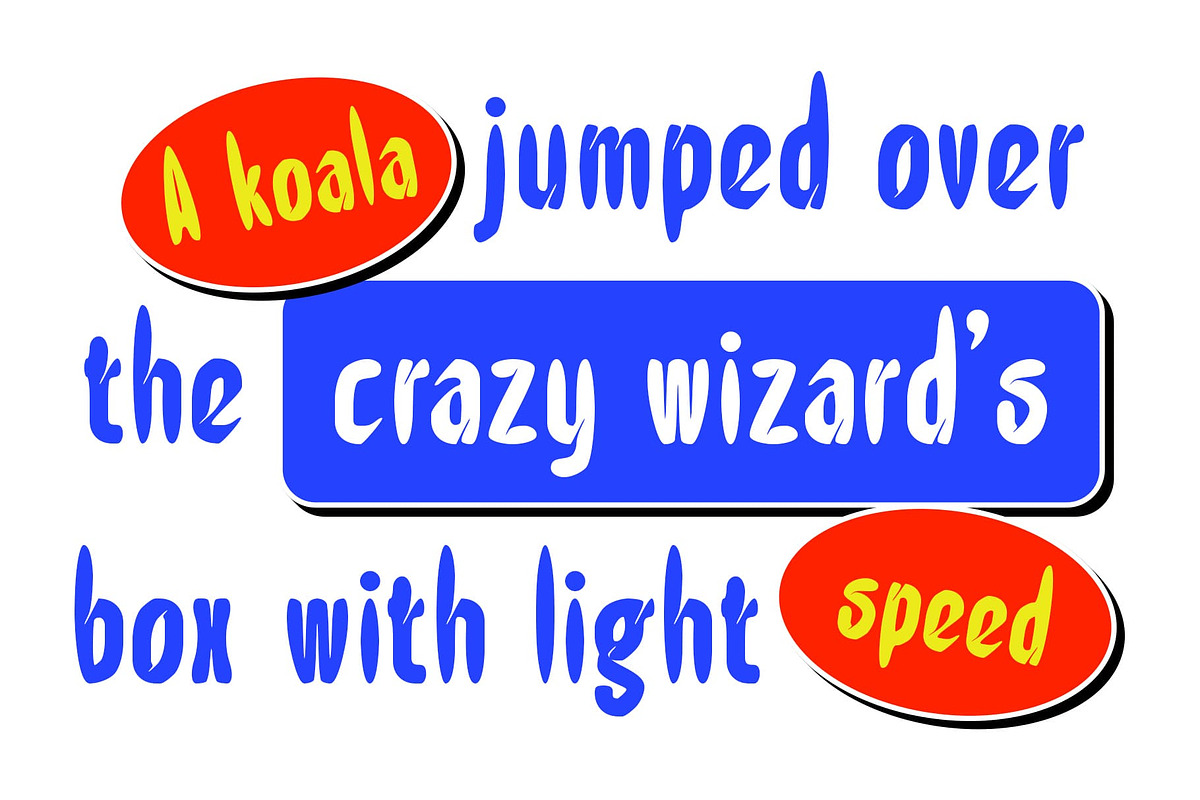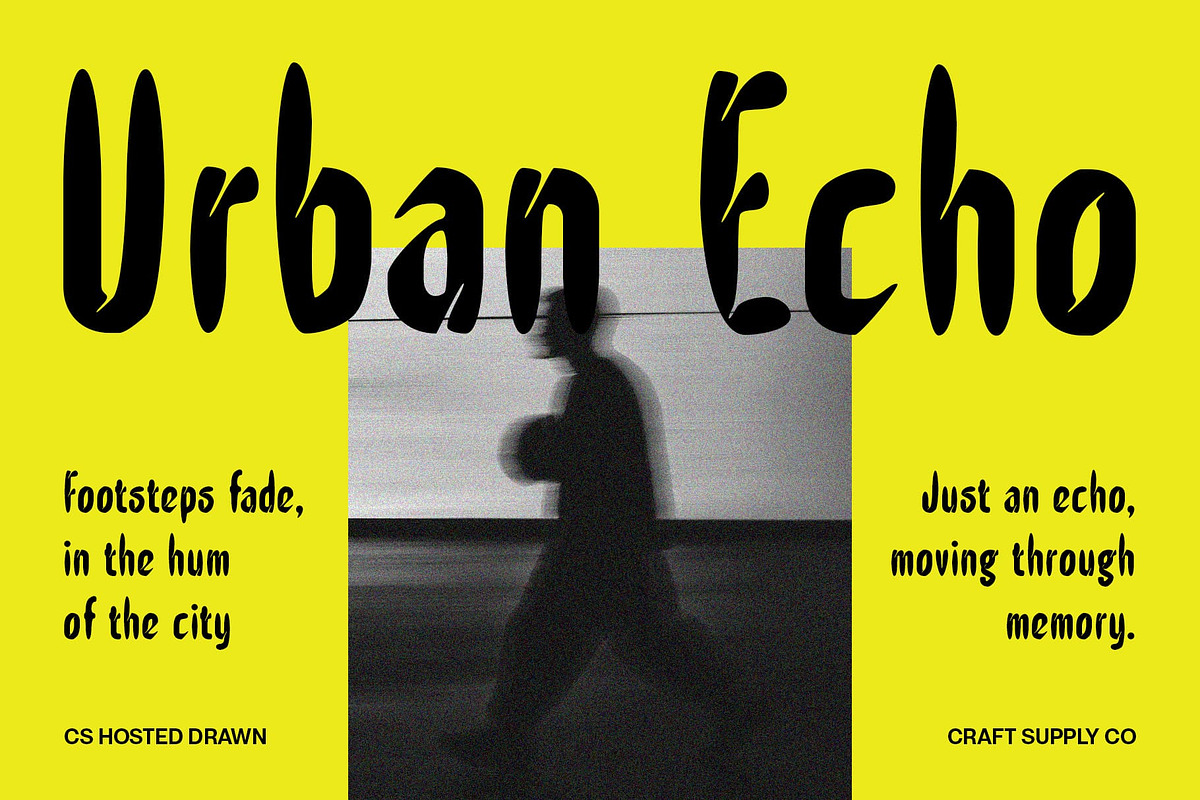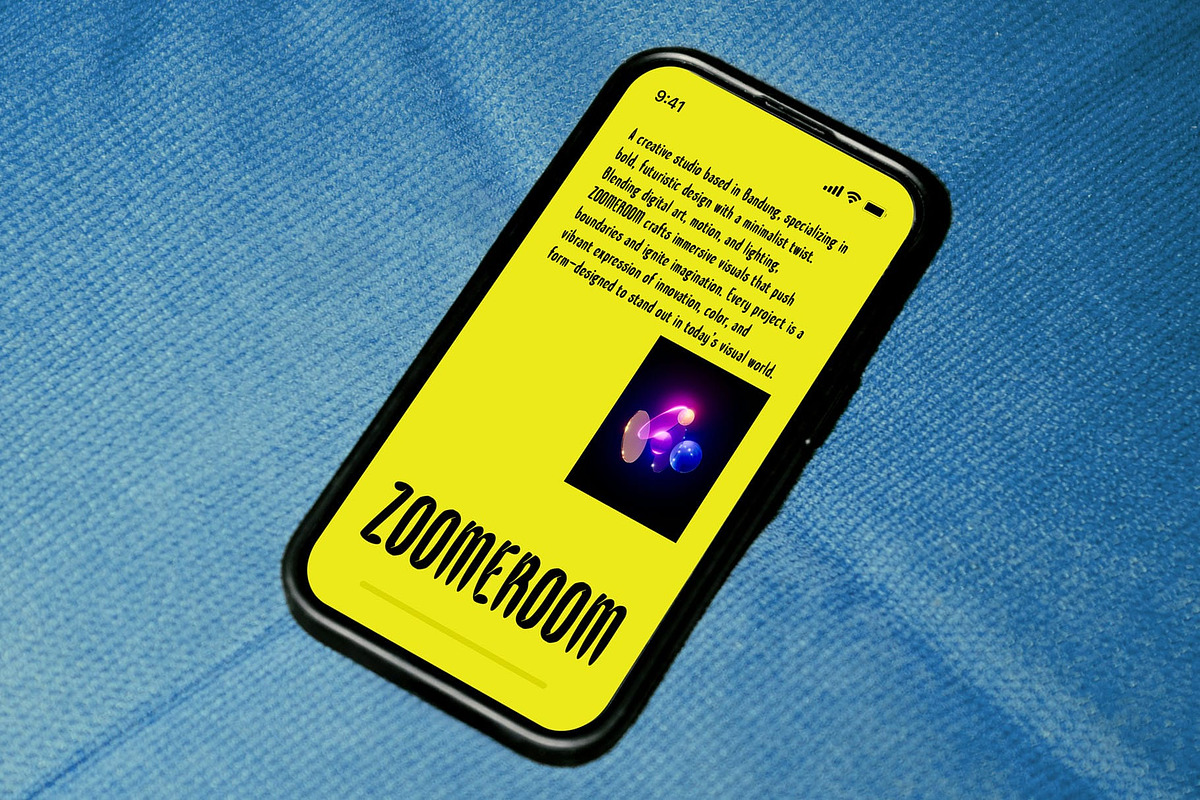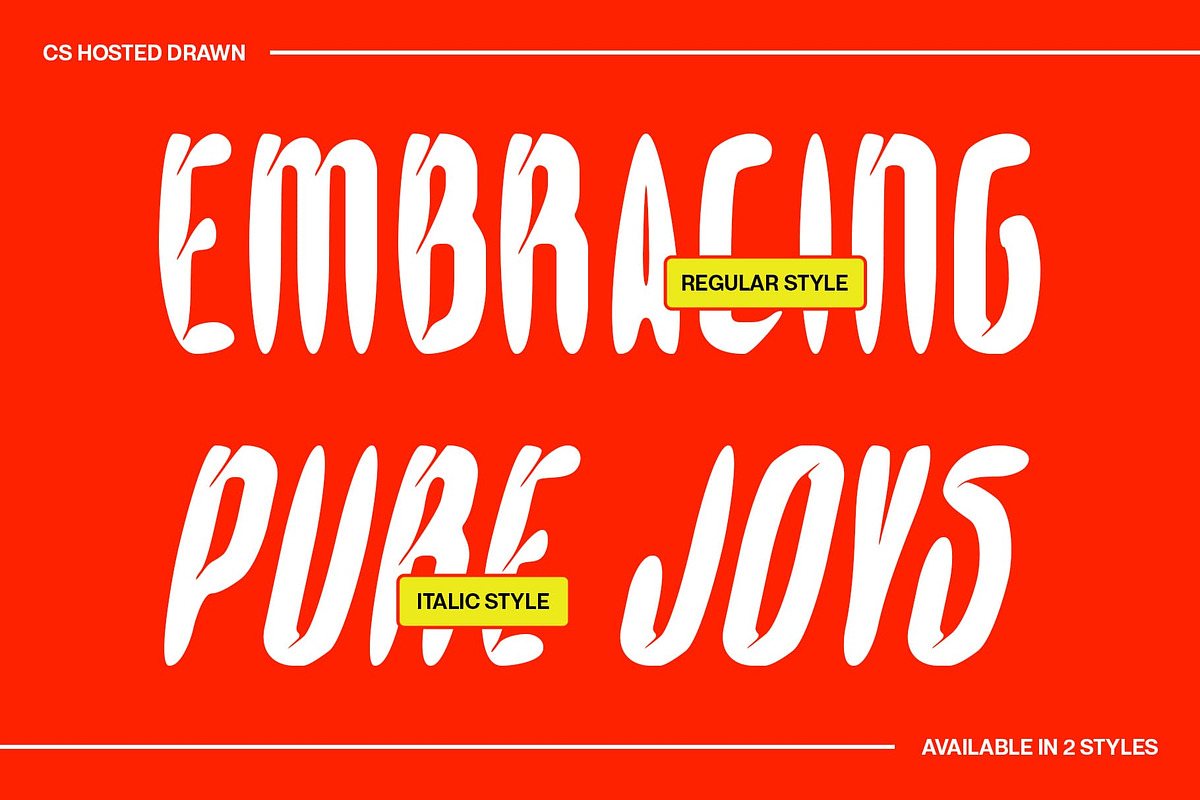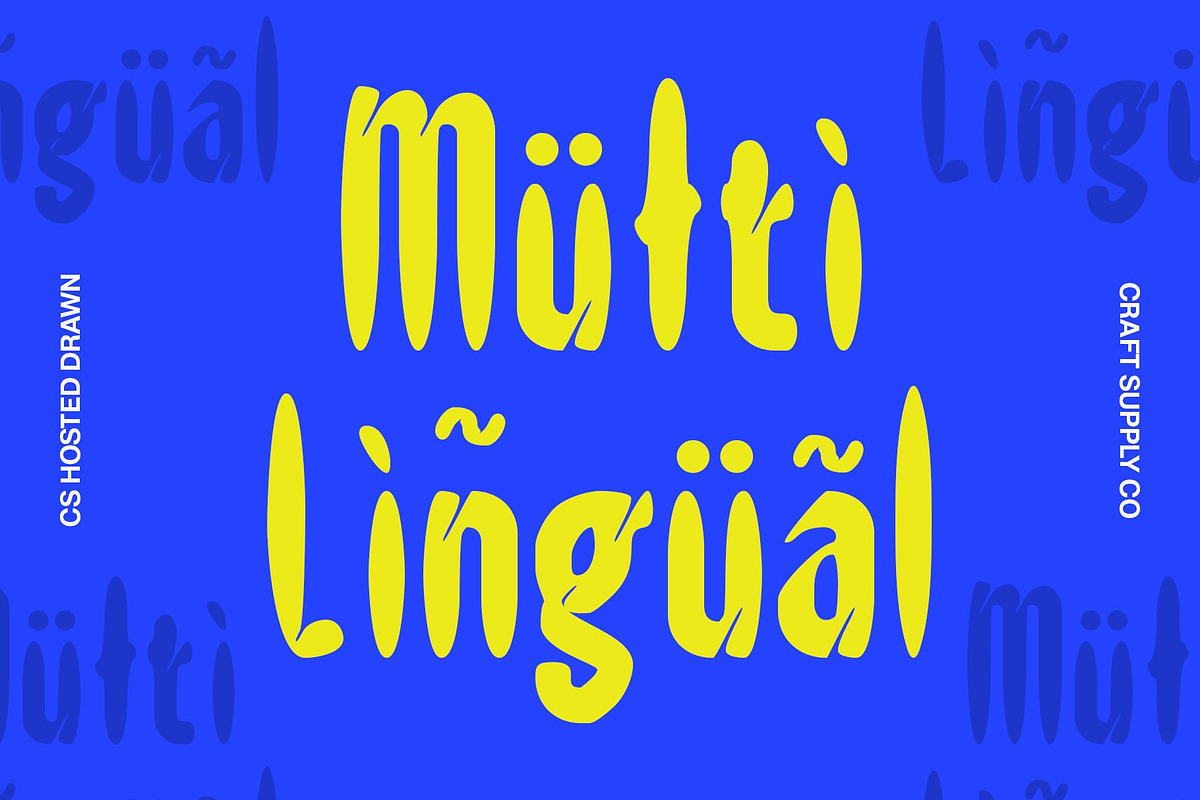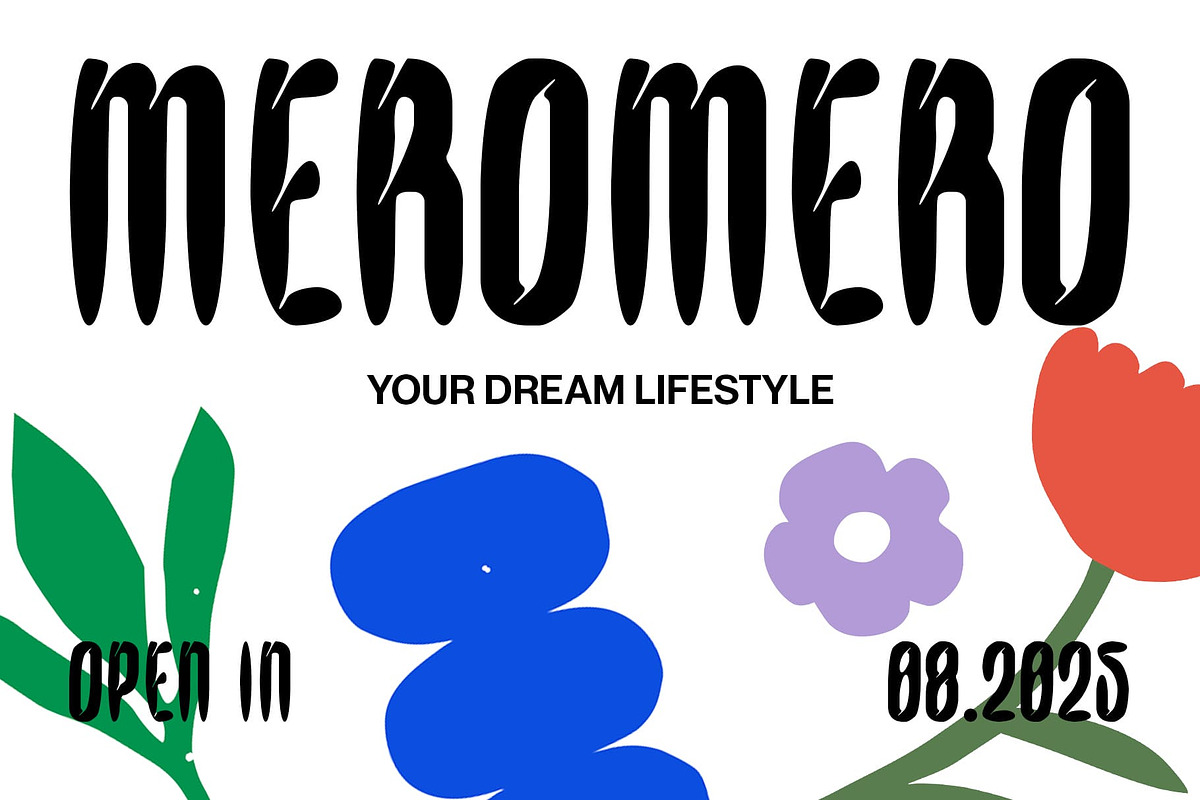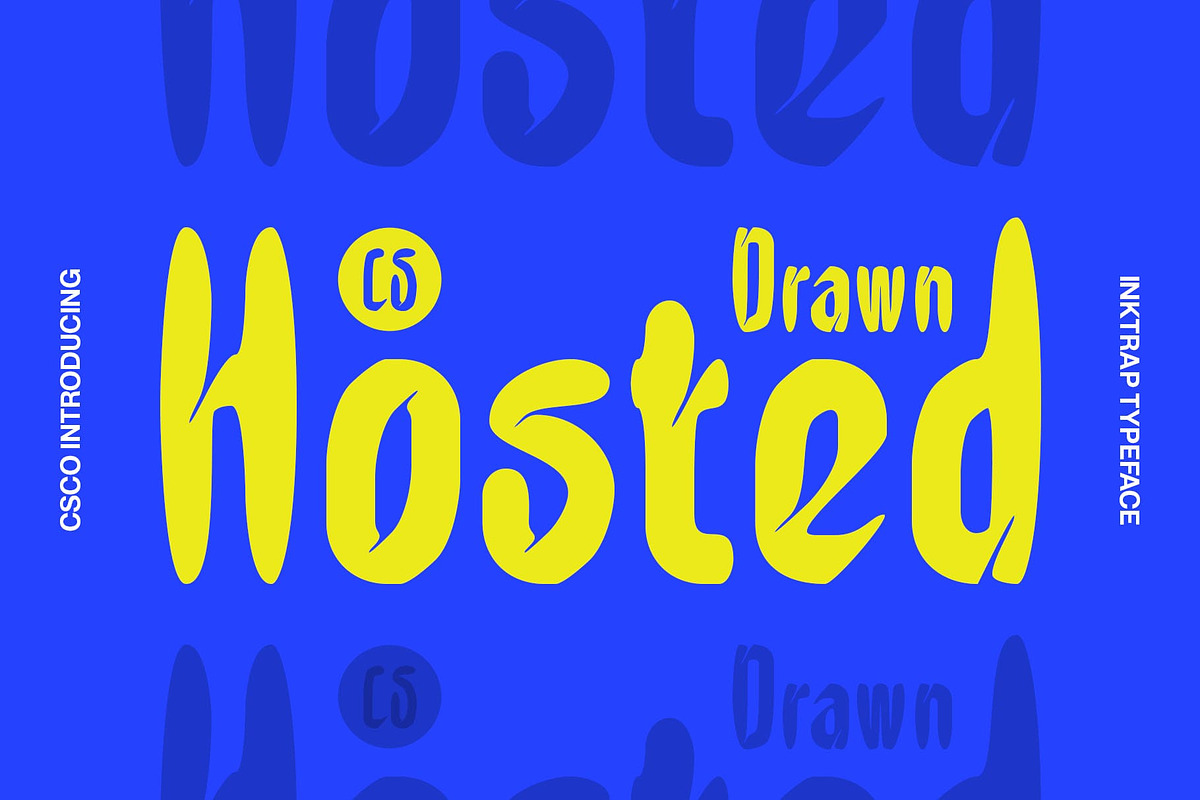
CS Hosted Drawn
CS Hosted Drawn – A Modern Sans Serif with Inktrap Precision and Handcrafted Edge
Precision Meets Personality This is a bold, modern sans-serif font that stands out through its solid geometric structure and signature inktrap detailing. These sharp notches and angular cuts, integrated at letter junctions, aren’t just stylistic—they serve a functional purpose, ensuring legibility in small sizes, digital interfaces, or coarse printing environments.
Geometric Clarity with Industrial Strength Built on clean lines and strong proportions, this typeface exudes a sense of discipline and modernity. Its geometric base gives it a professional, structured, and highly readable appearance, making it a powerful tool for applications that demand both clarity and presence—from branding to UI design.
A Touch of the Handmade Balancing its structured form, the drawn effect brings in a subtle, organic texture that mimics hand-rendered lines. This contrast between machine-like geometry and artistic imperfection adds an expressive, rugged charm, making the font feel more human and approachable without losing its bold tone.
Ideal for Impactful Design This refined yet rugged font thrives in contexts that demand a bold typographic identity—think modern tech branding, editorial layouts, packaging, posters, or any project where clarity, strength, and personality must align.